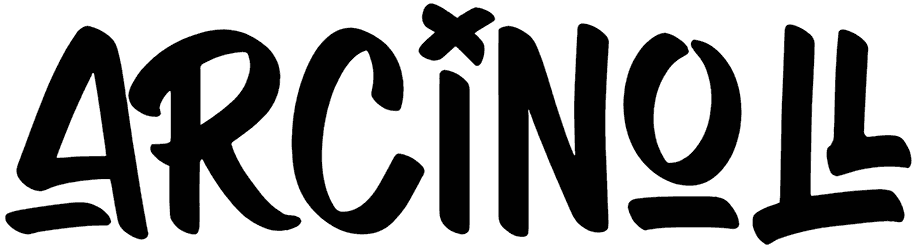
Arcinoll Font
If you are inquisitive about producing one cool typography that stands playful and attractive to the viewers, you should make use of Arcinoll an urban graffiti font that is the best alternative for your project. Its street art design is so energetic, animated, and also highly sociable.
Arcinoll offers bold sans serif style characters that are positive and exciting. It doesn’t contain lower-case letters and a full set of numbers. It’s brilliant for branding, posters, gaming, movies, and more.